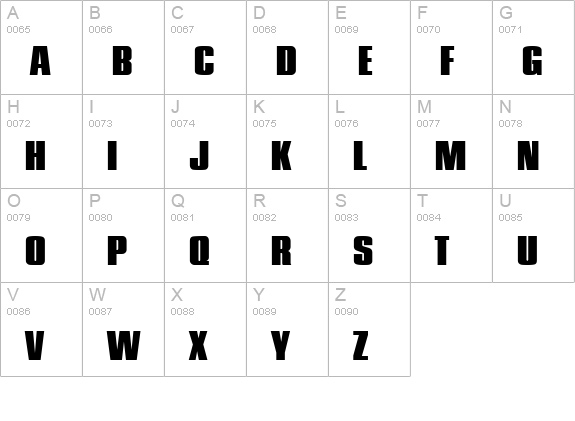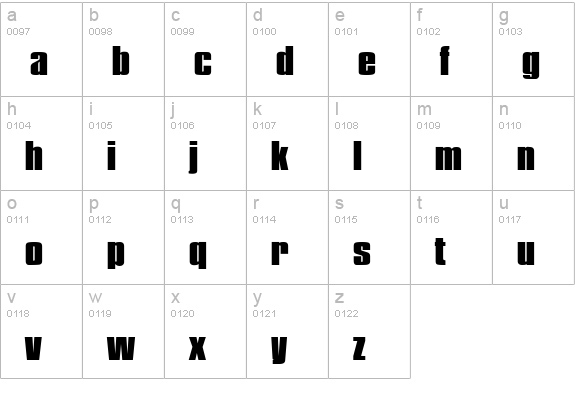
Plakette 5 SF is a dynamic and versatile font that exudes a sense of modernity and sophistication. With its clean lines and bold curves, this typeface is perfect for creating eye-catching headlines, striking logos, and impactful designs. What sets Plakette 5 SF apart is its unique blend of elegance and strength. The carefully crafted letterforms strike a harmonious balance between sleekness and power, making it suitable for a wide range of creative projects. Whether you're designing a sleek website, composing a contemporary magazine layout, or creating captivating social media graphics, Plakette 5 SF will undoubtedly elevate your work to new heights. One of the best things about Plakette 5 SF is that it is available for free download at FontsMarket.com. This means that you can enjoy the benefits of this exceptional font without having to spend a penny. Simply head over to FontsMarket.com, and you'll have access to the full Plakette 5 SF font family, including regular, bold, and italic variations. Plakette 5 SF is a font that seamlessly blends style and functionality. Its versatility, coupled with its availability as a free download, makes it an invaluable asset for any designer or creative professional. So why wait? Go ahead and enhance your designs with the timeless elegance of Plakette 5 SF today.